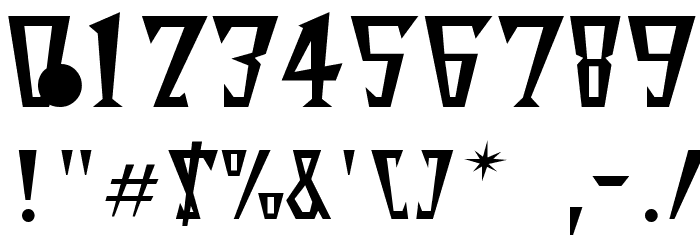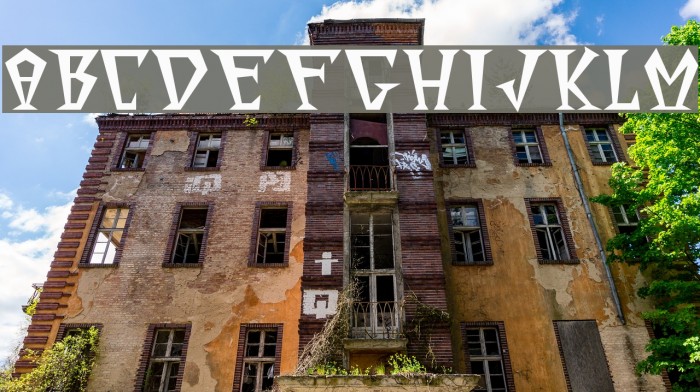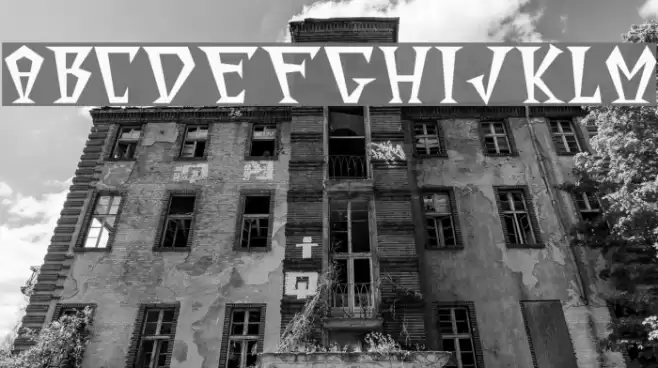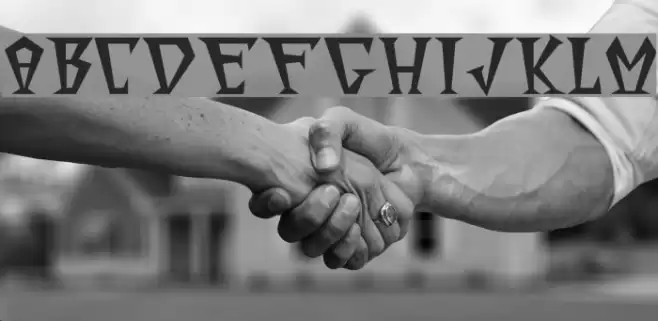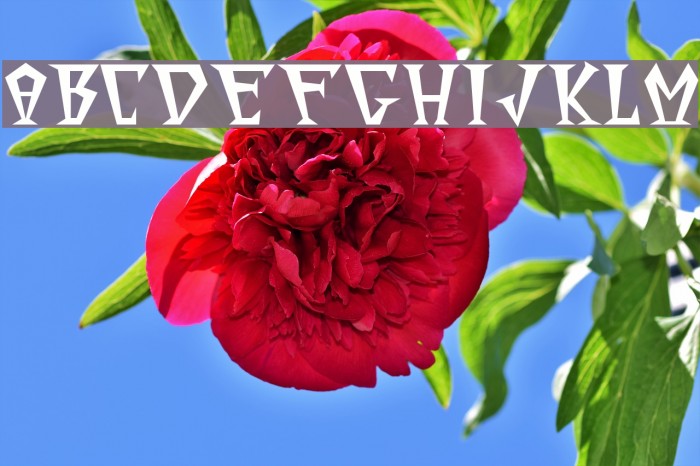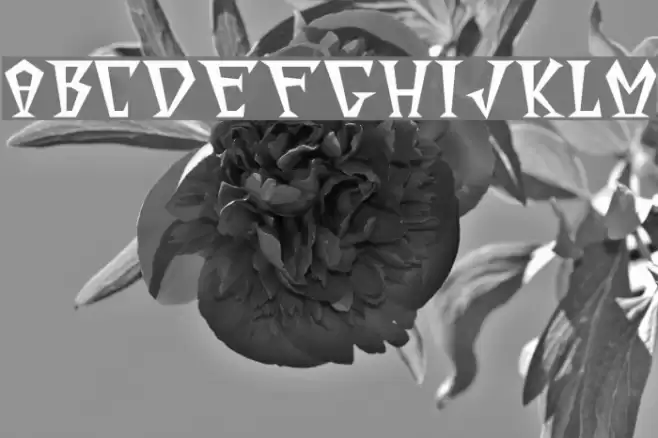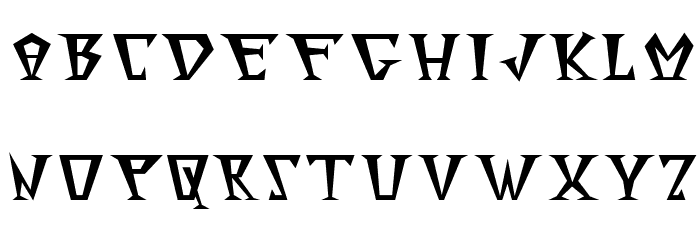
Surfinta Mars Font
Surfinta Mars Description
This font features a bold, angular design with sharp edges and a futuristic aesthetic. The characters are uniquely stylized, with a geometric influence that gives them a dynamic and edgy appearance. The uppercase and lowercase letters maintain a consistent design language, while the numerals and special characters complement the overall style. The font's distinctiveness makes it suitable for attention-grabbing designs, with a strong presence that can stand out in various contexts.
| Overall Style | Futuristic, Geometric |
| Proposed Projects | Ideal for sci-fi themed projects, video game titles, posters, and branding that requires a modern and edgy look. |